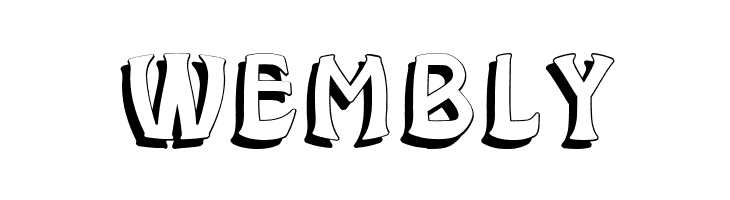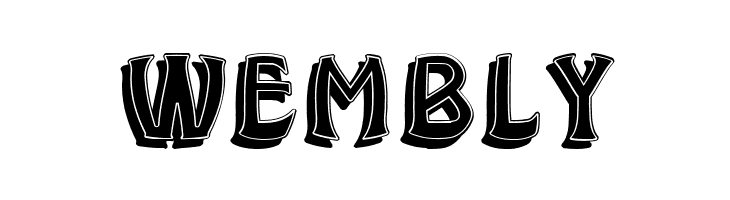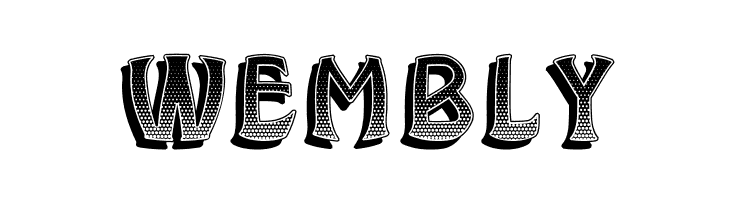
Brassica Regular Font
A bold, decorative font with a dotted texture and vintage flair.
Brassica Filled Regular Font
A bold, decorative font with a three-dimensional, shadowed effect.
Brassica Hollow Regular Font
A bold, hollow, decorative font with a playful, three-dimensional style.